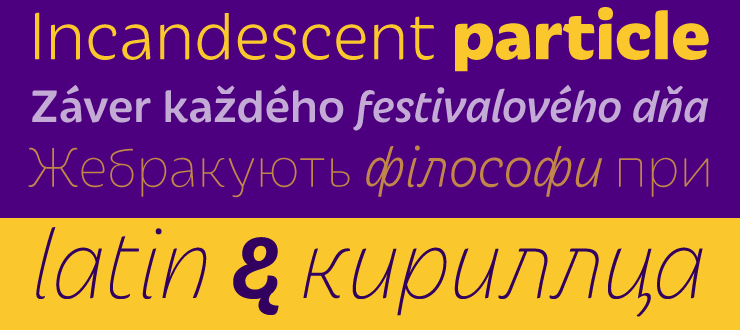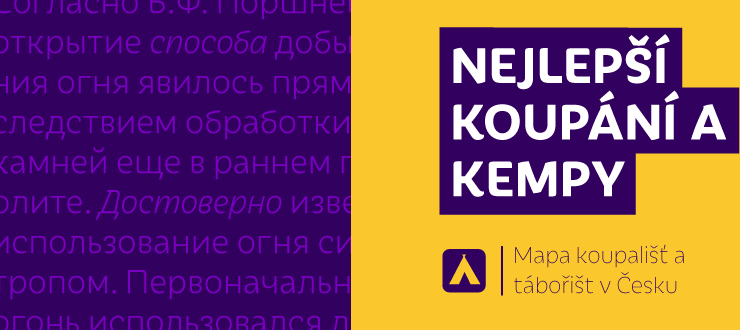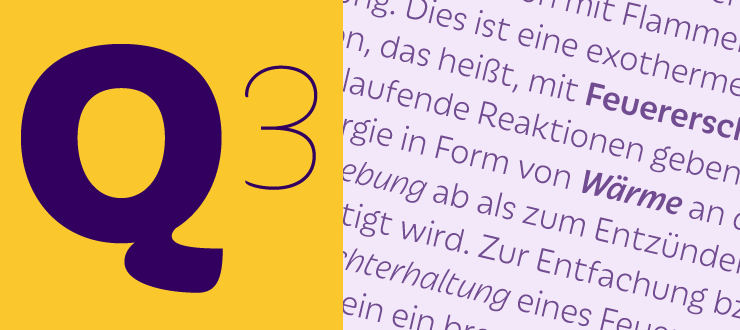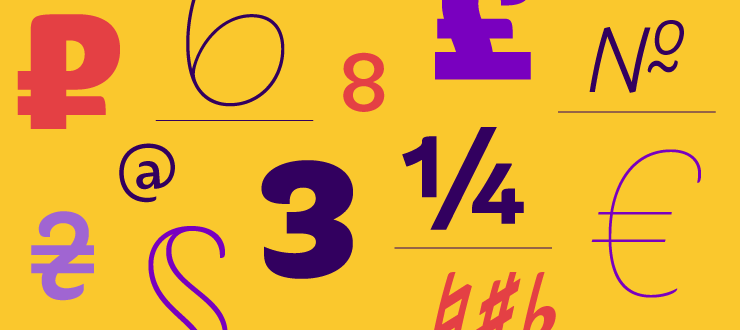
Iskra A practical sans serif need not appear dry, constructed, or derivative. It can excel in its sensible role and yet possess a distinct flair. Iskra (spark or flash) is a new sans serif designed by Tom Grace. It was conceived to challenge the limits between utilitarian and decorative. Sporting a low-contrast profile, it is a study of bridled energy in the Cyrillic and Latin scripts. Its eye-catching forms are an oblique tribute to the less-predictable style of brush lettering, and contain daring, elegant curves, economical proportions, and a slight top-heavy asymmetry. Its warmth comes from the subtle emphasis on the structures and details of individual letterforms, whereas its solidity is demonstrated through its balanced rhythm over long spans of text. Each font supports over 75 languages and is hand-tuned for a pleasing legibility and aesthetic both in print and on screen. This type family makes an excellent choice for presentations, articles, branding, and advertising. Available in 14 styles, Iskra represents a fresh, stimulating, forward-looking perspective on how we see both the vitality of the particular letter and the overall harmony of text. Iskra is available in three different character repertoires: Iskra, complete set — Iskra CYR, Cyrillic-based subset with a Latin supplement — Iskra LAT, Latin-based subset. Both the LAT and CYR series conform to most standard codepages used by typical software covering their respective scripts. All three series have similar OpenType functionality.